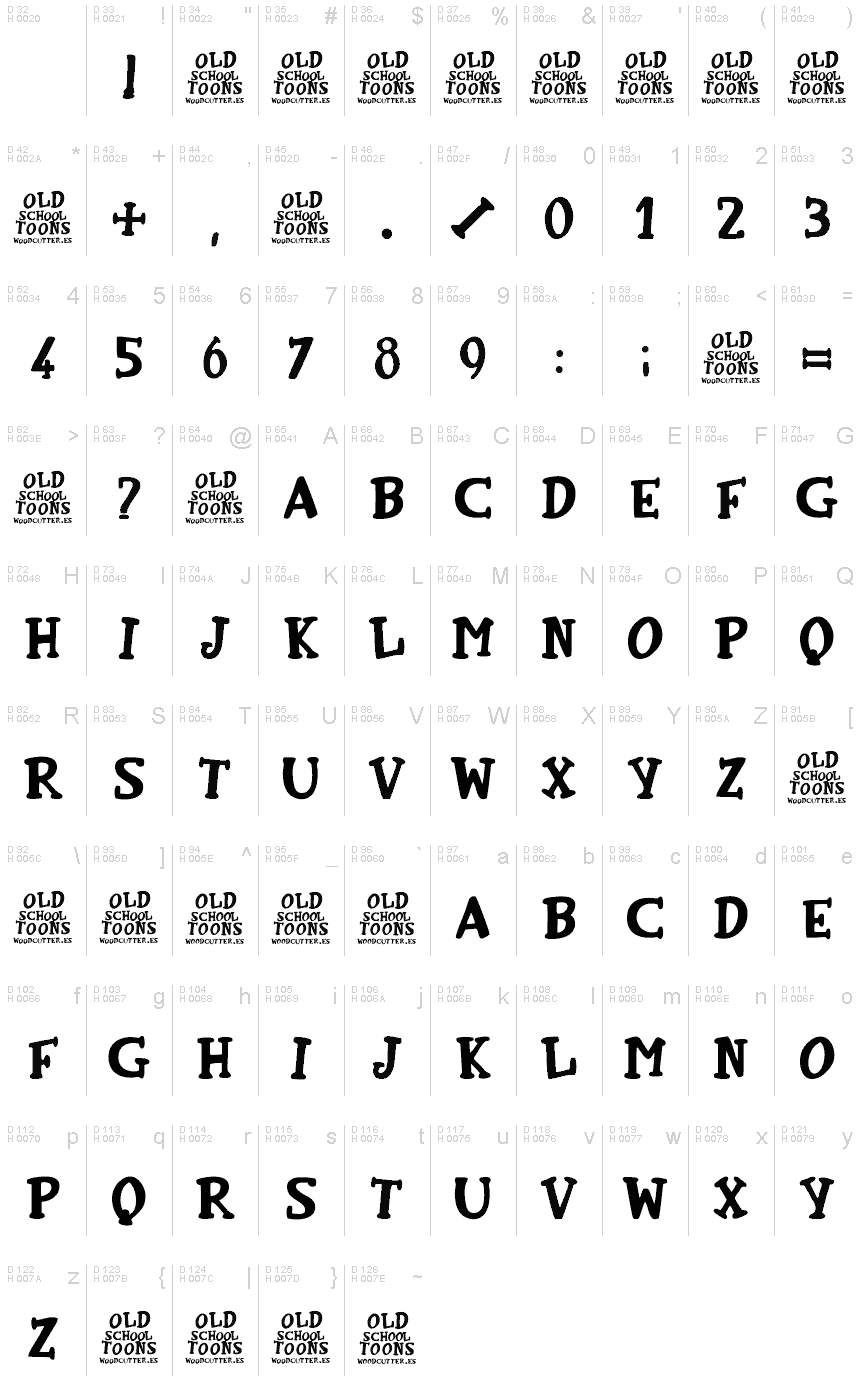
Old School Toons
"Old School Toons" by Woodcutter Manero is a bold, cartoon-inspired display font that exudes a distinct vintage flair. With its thick, playful strokes and whimsical charm, this font effortlessly captures the nostalgic essence of classic animated characters. Its strong, confident letterforms lend themselves perfectly to headlines, posters, and branding applications that seek to evoke a sense of timeless, playful artistry.
Whether crafting retro-themed designs, emphasizing a brand's playful personality, or adding a touch of fun to visual narratives, "Old School Toons" delivers a striking typographic statement that is sure to captivate and delight.